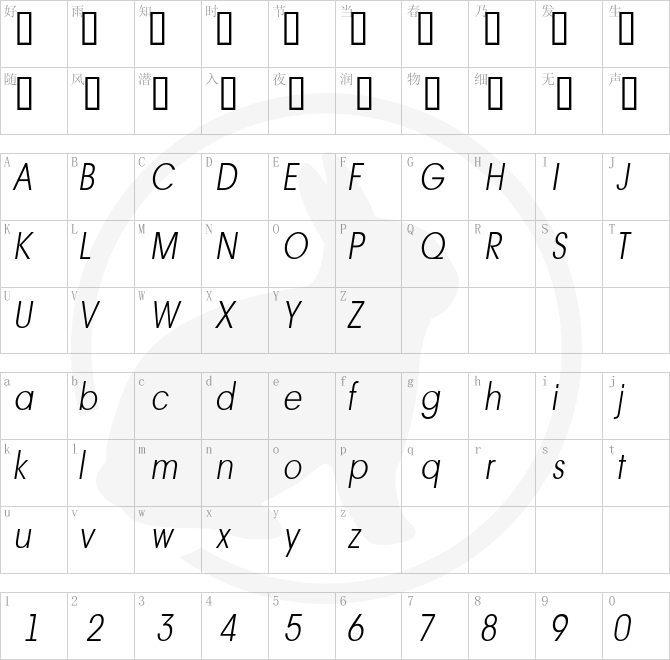
• Font Name:a_AvanteLtNr
• Subfamily:ThinItalic
• Subfamily:Macromedia Fontographer 4.1 a_AvanteLtNr ThinItalic
• Full Name:a_AvanteLtNr ThinItalic
• Version:Macromedia Fontographer 4.1 10.11.97
• Weight:100
• PostScript:AAvanteLtNrThinItalic
a_AvanteLtNr-ThinItalic.ttf is a very beautiful artistic font, a_AvanteLtNr-ThinItalic.ttf is widely used in the design and printing of various books and pictures,a_AvanteLtNr-ThinItalic.ttf has a strong visual impact,a_AvanteLtNr-ThinItalic.ttf is a commonly used font in newspapers, magazines and books, and is used in posters, e-commerce Poster design, store design, logo design, font design and other fields.a_AvanteLtNr-ThinItalic.